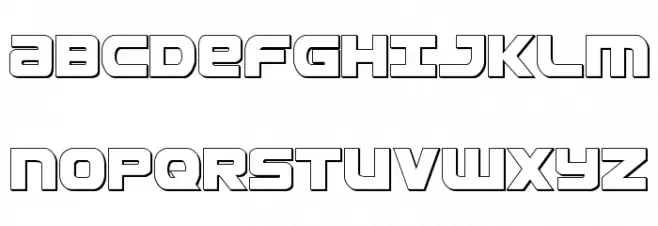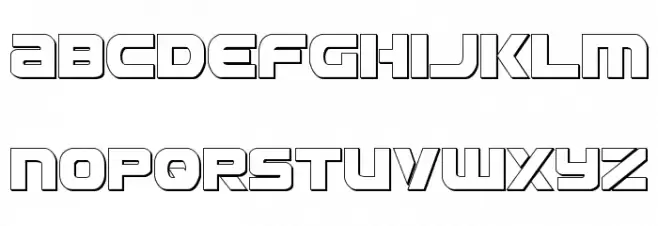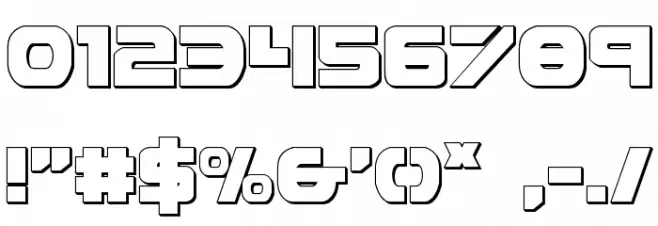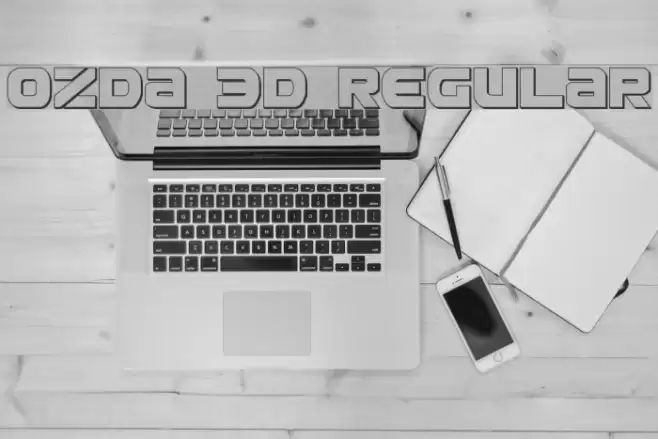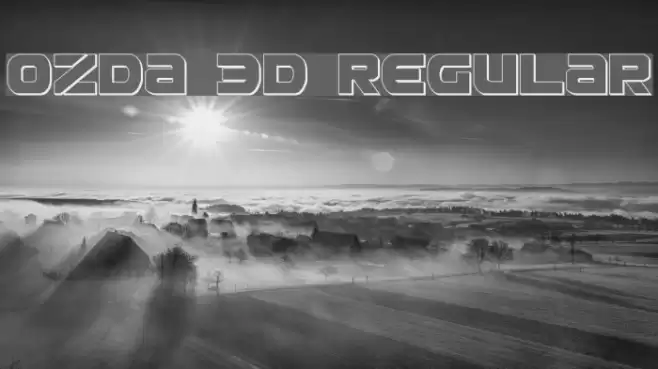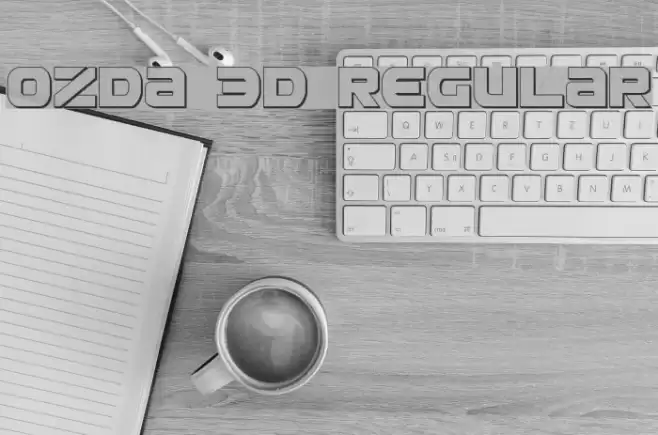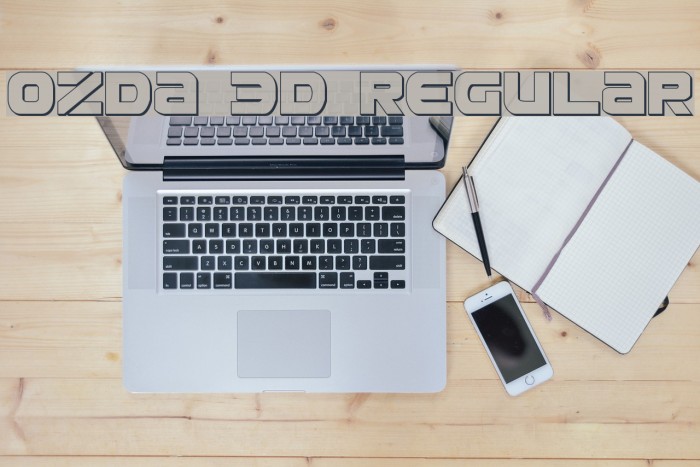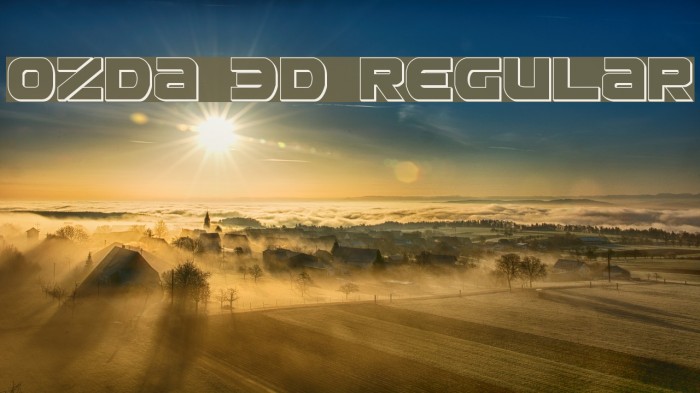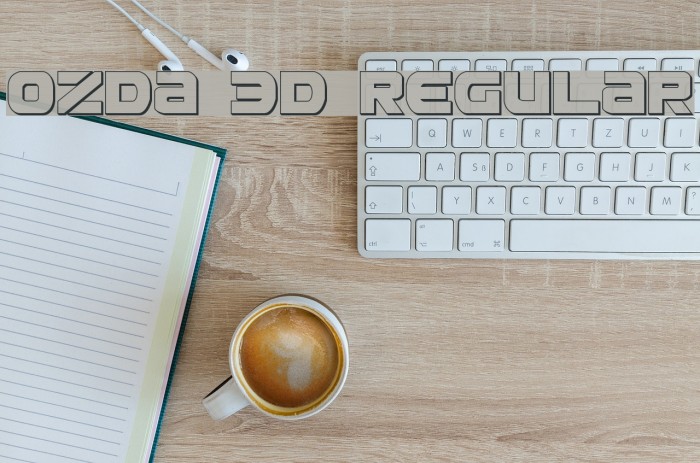
Ozda 3D Regular
This font features a bold, three-dimensional style with a modern and futuristic aesthetic. The characters are outlined, creating a hollow effect that adds depth and dimension. The geometric shapes and sharp angles give it a distinct, tech-inspired look. The uppercase and lowercase letters maintain a consistent style, with uniform line thickness and angular edges. The numbers and special characters follow the same design principles, ensuring a cohesive appearance across all glyphs. This font is ideal for projects that require a standout, eye-catching typeface with a contemporary feel.
A bold, 3D outlined font with a modern, tech-inspired style.
- Proposed Projects: Ideal for technology branding, sci-fi posters, video game titles, and futuristic designs.